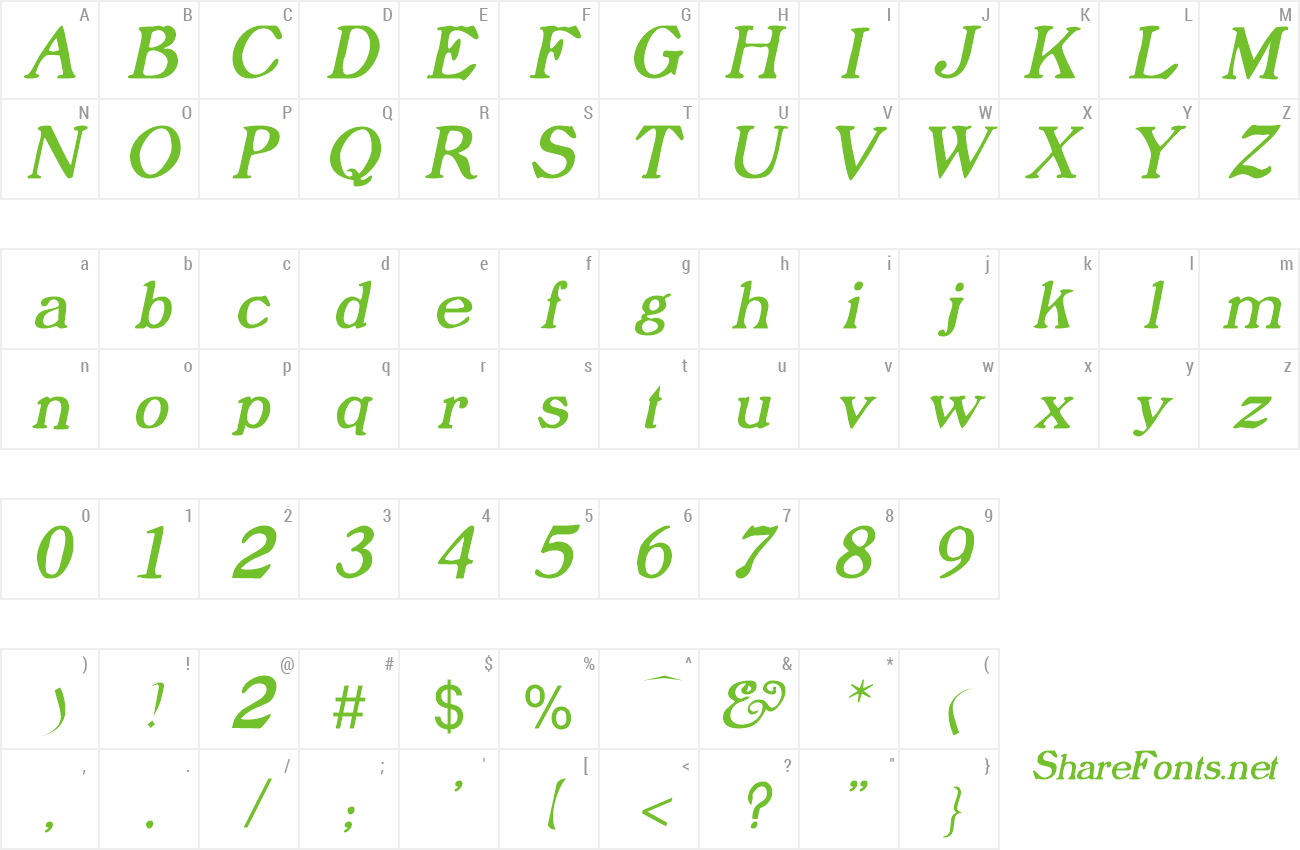
Daily Prophet Fonts
Daily Prophet Fonts - The daily prophet is a typeface inspired by the headlines in the eponymous wizarding newspaper. Can someone tell me the font used for the titles, for daily prophet and for south, north, central and london? Archive of freely downloadable fonts. Browse by alphabetical listing, by style, by author or by popularity. Channel the ridiculous writings of rita skeeter. Archive of freely downloadable fonts. Browse by alphabetical listing, by style, by author or by popularity. The daily prophet is a typeface inspired by the headlines in the eponymous wizarding newspaper.
Channel the ridiculous writings of rita skeeter. Archive of freely downloadable fonts. Browse by alphabetical listing, by style, by author or by popularity. Browse by alphabetical listing, by style, by author or by popularity. The daily prophet is a typeface inspired by the headlines in the eponymous wizarding newspaper. Archive of freely downloadable fonts. Can someone tell me the font used for the titles, for daily prophet and for south, north, central and london? The daily prophet is a typeface inspired by the headlines in the eponymous wizarding newspaper.
Can someone tell me the font used for the titles, for daily prophet and for south, north, central and london? Channel the ridiculous writings of rita skeeter. Archive of freely downloadable fonts. The daily prophet is a typeface inspired by the headlines in the eponymous wizarding newspaper. Browse by alphabetical listing, by style, by author or by popularity. Browse by alphabetical listing, by style, by author or by popularity. The daily prophet is a typeface inspired by the headlines in the eponymous wizarding newspaper. Archive of freely downloadable fonts.
Archive of freely downloadable fonts. Browse by alphabetical listing, by style, by author or by popularity. The daily prophet is a typeface inspired by the headlines in the eponymous wizarding newspaper. Browse by alphabetical listing, by style, by author or by popularity.
The daily prophet is a typeface inspired by the headlines in the eponymous wizarding newspaper. Archive of freely downloadable fonts. Channel the ridiculous writings of rita skeeter. Archive of freely downloadable fonts. The daily prophet is a typeface inspired by the headlines in the eponymous wizarding newspaper.
Archive of freely downloadable fonts. Browse by alphabetical listing, by style, by author or by popularity. Browse by alphabetical listing, by style, by author or by popularity. Channel the ridiculous writings of rita skeeter. The daily prophet is a typeface inspired by the headlines in the eponymous wizarding newspaper.
Archive of freely downloadable fonts. The daily prophet is a typeface inspired by the headlines in the eponymous wizarding newspaper. Browse by alphabetical listing, by style, by author or by popularity. Browse by alphabetical listing, by style, by author or by popularity. Archive of freely downloadable fonts.
The daily prophet is a typeface inspired by the headlines in the eponymous wizarding newspaper. Channel the ridiculous writings of rita skeeter. Archive of freely downloadable fonts. The daily prophet is a typeface inspired by the headlines in the eponymous wizarding newspaper. Browse by alphabetical listing, by style, by author or by popularity.
Can someone tell me the font used for the titles, for daily prophet and for south, north, central and london? Channel the ridiculous writings of rita skeeter. The daily prophet is a typeface inspired by the headlines in the eponymous wizarding newspaper. Archive of freely downloadable fonts. The daily prophet is a typeface inspired by the headlines in the eponymous.
Browse by alphabetical listing, by style, by author or by popularity. Can someone tell me the font used for the titles, for daily prophet and for south, north, central and london? Archive of freely downloadable fonts. The daily prophet is a typeface inspired by the headlines in the eponymous wizarding newspaper. The daily prophet is a typeface inspired by the.
Archive of freely downloadable fonts. Browse by alphabetical listing, by style, by author or by popularity. Can someone tell me the font used for the titles, for daily prophet and for south, north, central and london? Browse by alphabetical listing, by style, by author or by popularity. The daily prophet is a typeface inspired by the headlines in the eponymous.
Archive of freely downloadable fonts. The daily prophet is a typeface inspired by the headlines in the eponymous wizarding newspaper. Browse by alphabetical listing, by style, by author or by popularity. Can someone tell me the font used for the titles, for daily prophet and for south, north, central and london?
Channel the ridiculous writings of rita skeeter. The daily prophet is a typeface inspired by the headlines in the eponymous wizarding newspaper. Browse by alphabetical listing, by style, by author or by popularity. Can someone tell me the font used for the titles, for daily prophet and for south, north, central and london?
Archive of freely downloadable fonts. The daily prophet is a typeface inspired by the headlines in the eponymous wizarding newspaper.